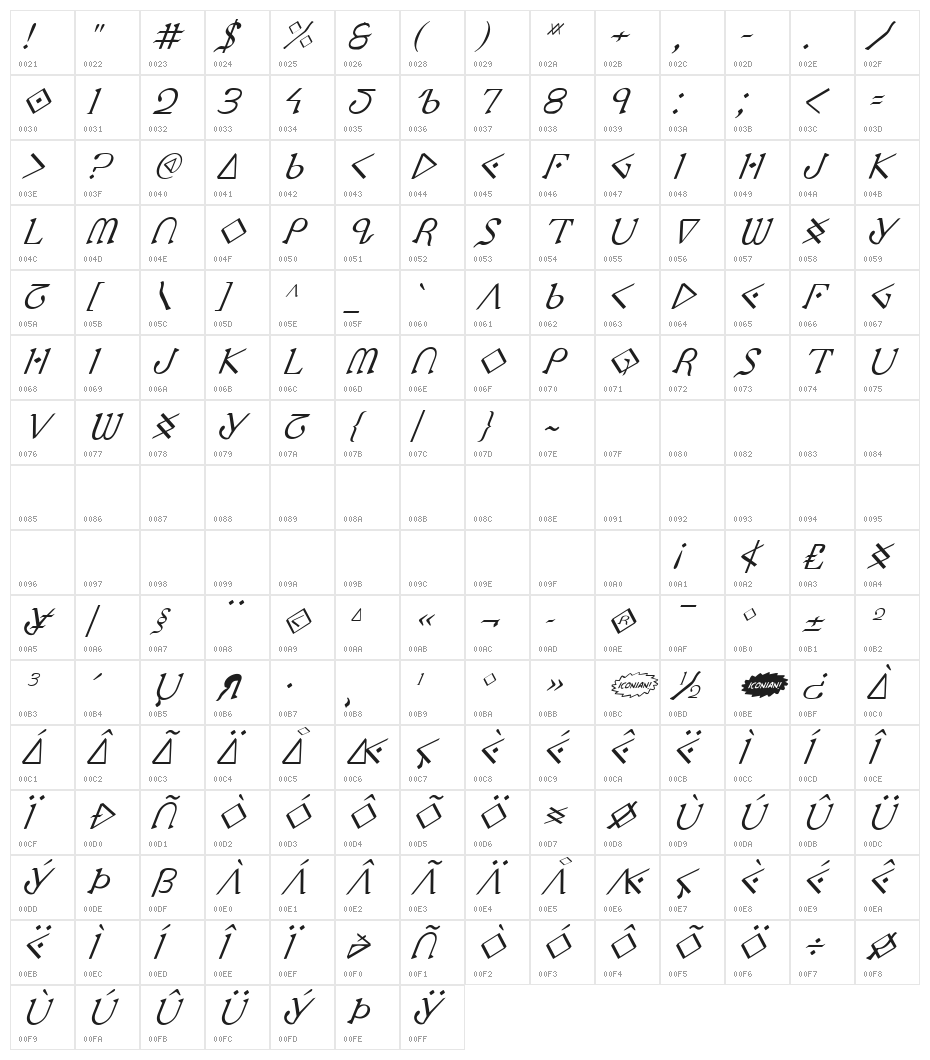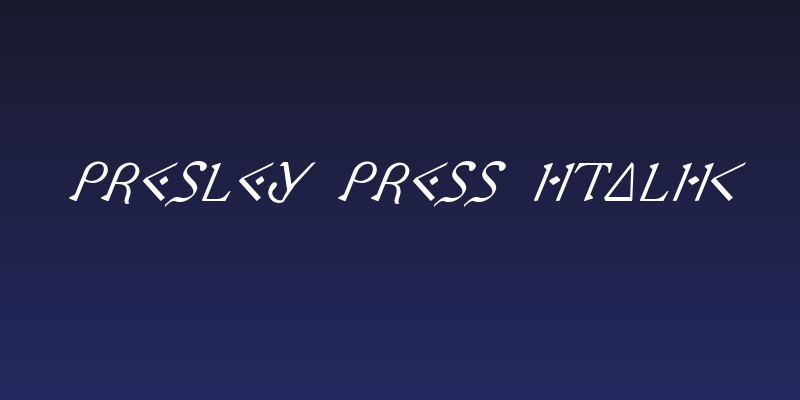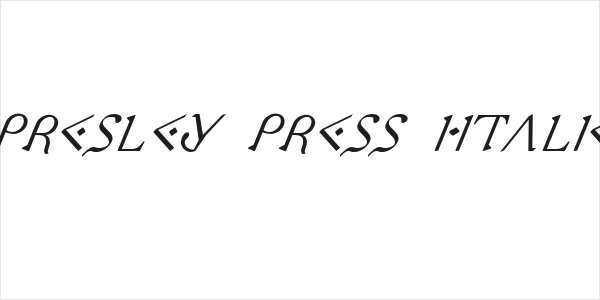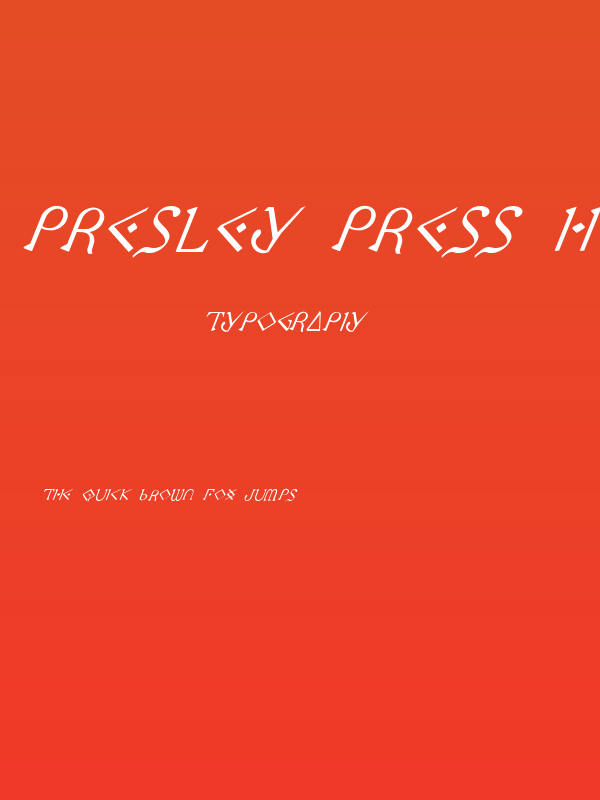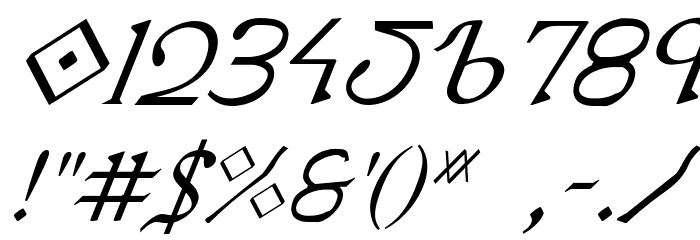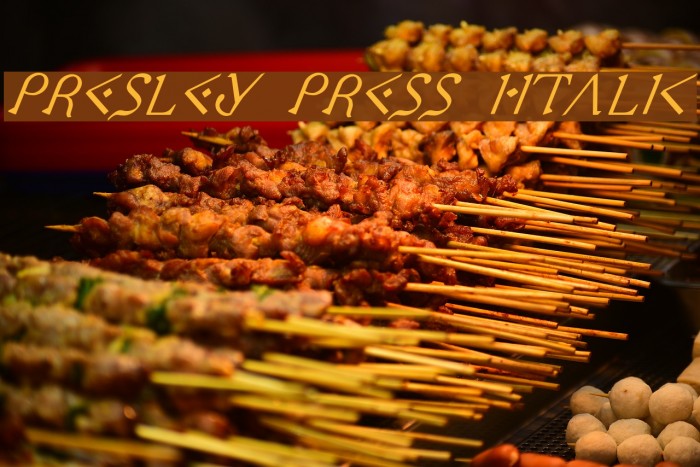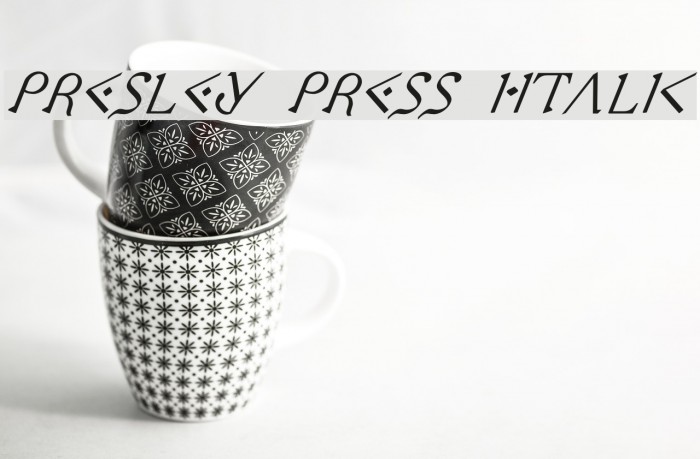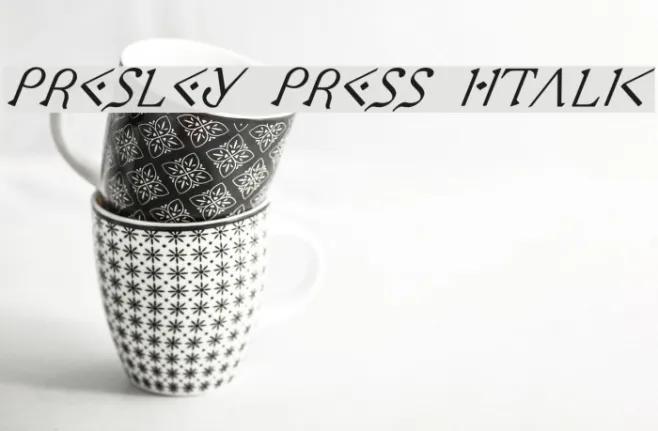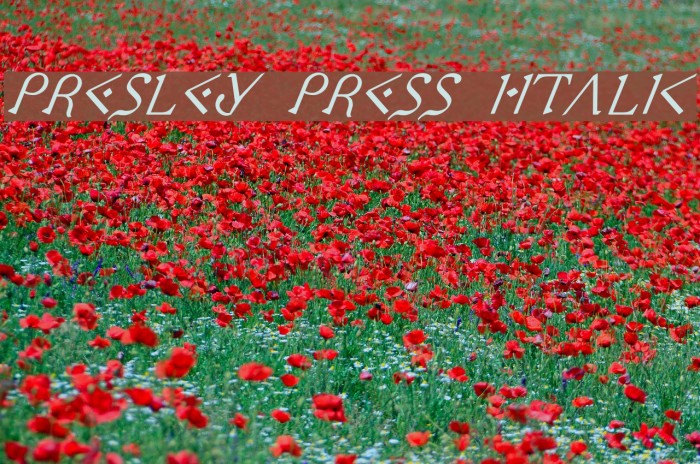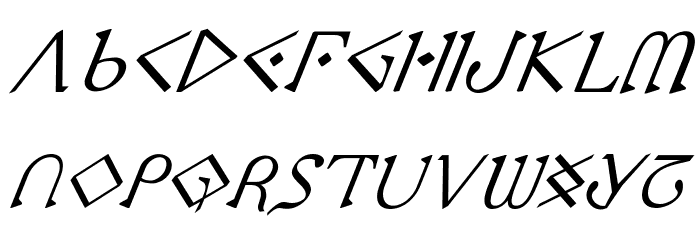
Presley Press Italic Font
Presley Press Italic Description
This font features a unique and decorative style with a strong italic slant, giving it a dynamic and energetic appearance. The characters are crafted with sharp angles and geometric shapes, creating a futuristic and avant-garde look. The uppercase and lowercase letters maintain a consistent style, with some characters exhibiting distinctive triangular and diamond-like elements. The numerals follow the same design principles, ensuring uniformity across the typeface. Special characters are also included, matching the overall aesthetic with bold and striking forms. The font's design is both eye-catching and unconventional, making it suitable for creative and modern applications.
| Use Case | Logos, Headlines, Posters |
| Proposed Projects | Ideal for use in branding, posters, album covers, and any project seeking a bold and modern aesthetic. |